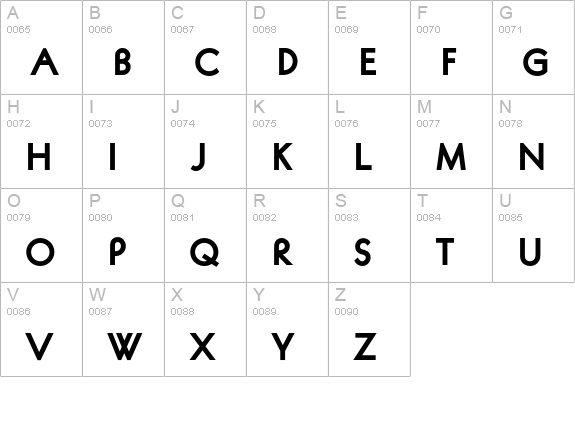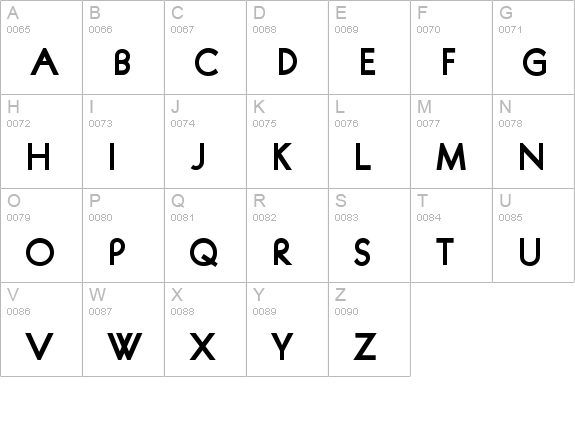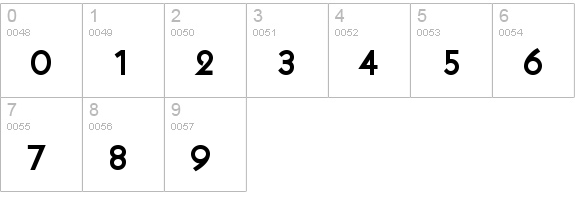
Avalon-Bold is a strong, high-contrast variant in the Avalon typeface family \xE2\x80\x94 well suited to headlines, attention-grabbing titles, and strong calls-to-action.
Avalon-Bold font is a modern and elegant typeface that exudes confidence and sophistication. With its bold and striking appearance, Avalon-Bold is perfect for creating eye-catching headlines, titles, and logos that demand attention. The clean lines and sharp edges of this font make it versatile and suitable for a wide range of design projects. What sets Avalon-Bold font apart is that it is available for free download at FontsMarket.com. This means that you can easily access and use this premium quality font without any cost. Whether you are a professional designer looking to enhance your projects or a casual user in need of a stylish font, Avalon-Bold is the perfect choice. Download Avalon-Bold font today and elevate your designs with its bold and impactful presence.